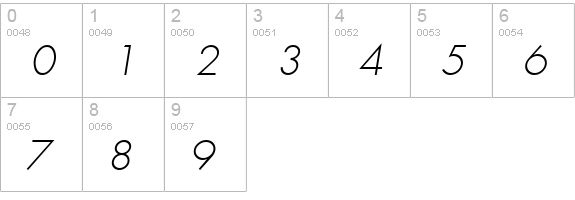
Kudos Light SSi Light Italic is a refined, elegant, italic variant in the Kudos typeface family \xE2\x80\x94 well suited to elegant body text, refined sub-headings, and luxury branding.
Kudos Light SSi Light Italic font is a graceful and elegant typeface that exudes sophistication and style. With its delicate curves and slanted design, this font is perfect for adding a touch of class to any project. Whether you're designing a wedding invitation, a logo, or a website, Kudos Light SSi Light Italic font is sure to make a lasting impression. The best part? This stunning font is available for free download at FontsMarket.com. Simply visit the website to access this beautiful typeface and enhance your next design project with a touch of luxury. Don't miss out on the opportunity to elevate your creations with the exquisite Kudos Light SSi Light Italic font, now freely available for you to enjoy.